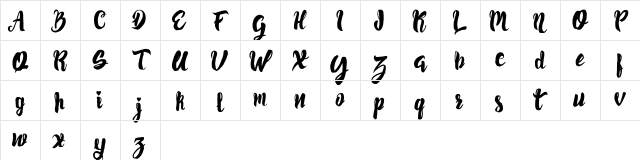
Pancake Syrup_regular_Demo Regular
Pancake Syrup_regular_Demo Regular Font Preview
Pancake Syrup_regular_Demo Regular Uppercase Preview
Pancake Syrup_regular_Demo Regular Lowercase Preview
Pancake Syrup_regular_Demo Regular Numeric Preview
Pancake Syrup_regular_Demo Regular Character Map
Complete Pancake Syrup_regular_Demo Regular glyph index. Displaying only characters natively supported by Pancake Syrup_regular_Demo Regular font.
Pancake Syrup_regular_Demo Regular Character Map
Pancake Syrup_regular_Demo Regular Test Drive
Design Context for Pancake Syrup_regular_Demo
Pancake Syrup_regular_Demo is a composed and adaptable typeface that performs quietly and consistently across a wide range of design contexts.